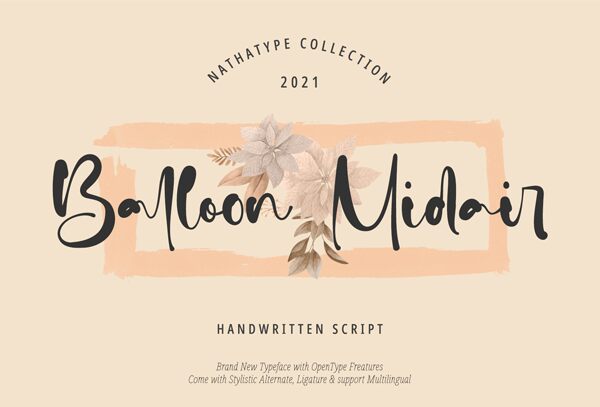
Ballon Midair font is a quality handwritten font designed by Din Studio.
Balloon Midair-A Handwritten Script Font
A beautifully handcrafted font thatll make your guests sing and elevate your projects! Every stroke and curve was created to spread happiness and elegance. Use it to create standout headings, promote your online sales, Instagram quotes, and even printed materials like business cards, t-shirts, or invitations.